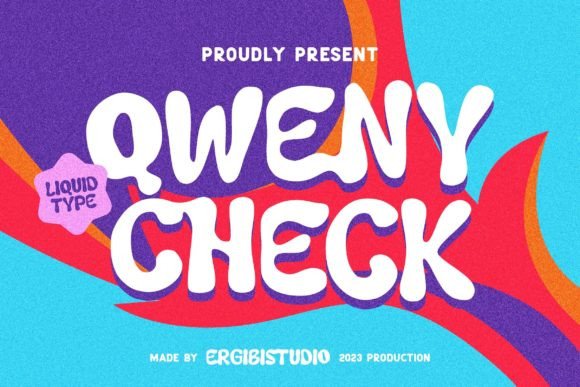
Introducing Qweny Check, the display font that will make your designs pop! Immerse yourself in a world of liquid shapes, classic modernity, and mouthwatering delights. This meticulously crafted font is a vintage lover's dream, offering a unique style that sets it apart from the ordinary.
Qweny Check boasts a captivating array of ligatures, adding an artistic flair to your headlines, logos, posters, packaging, and more. Its versatility extends to T-shirts, coffee shops, restaurants, magazine headers, and signs, making it the perfect choice for businesses looking to leave a lasting impression.
With Qweny Check, you'll find endless opportunities to create eye-catching designs. Whether you're working on gift cards, postcards, cafe menus, or wedding invitations, this font will add a touch of sophistication and charm. Its liquid-like curves and classic modern feel blend seamlessly, creating a timeless aesthetic that captivates and entices.
Step into the realm of Qweny Check and discover a world of creative possibilities. This font is your gateway to a world of visual storytelling, where your designs will come alive with a unique and unforgettable style. Embrace the beauty of Qweny Check and let your imagination run wild!